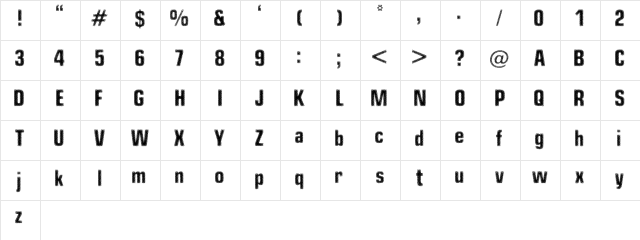
Follow Glass Regular
Design Context for Follow Glass Typeface
Follow Glass takes a measured approach to typography — its balanced proportions and neutral character make it a reliable workhorse for both digital and print work.